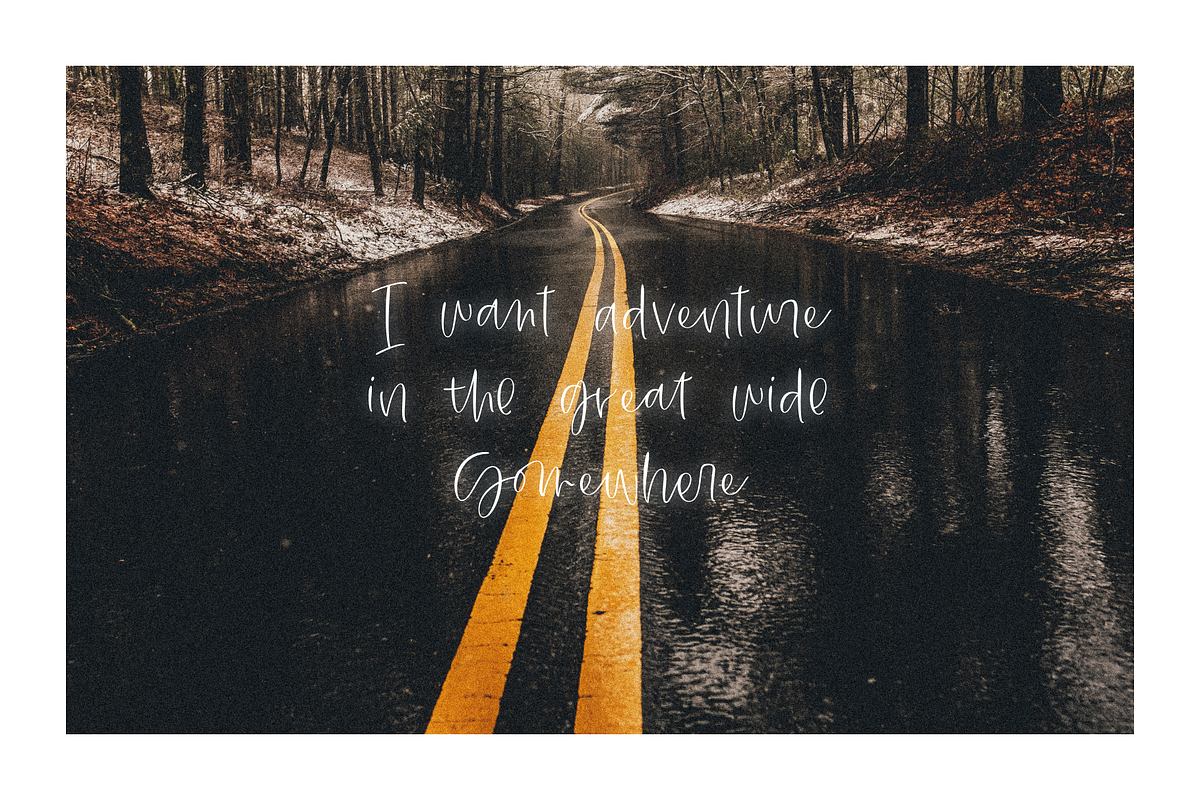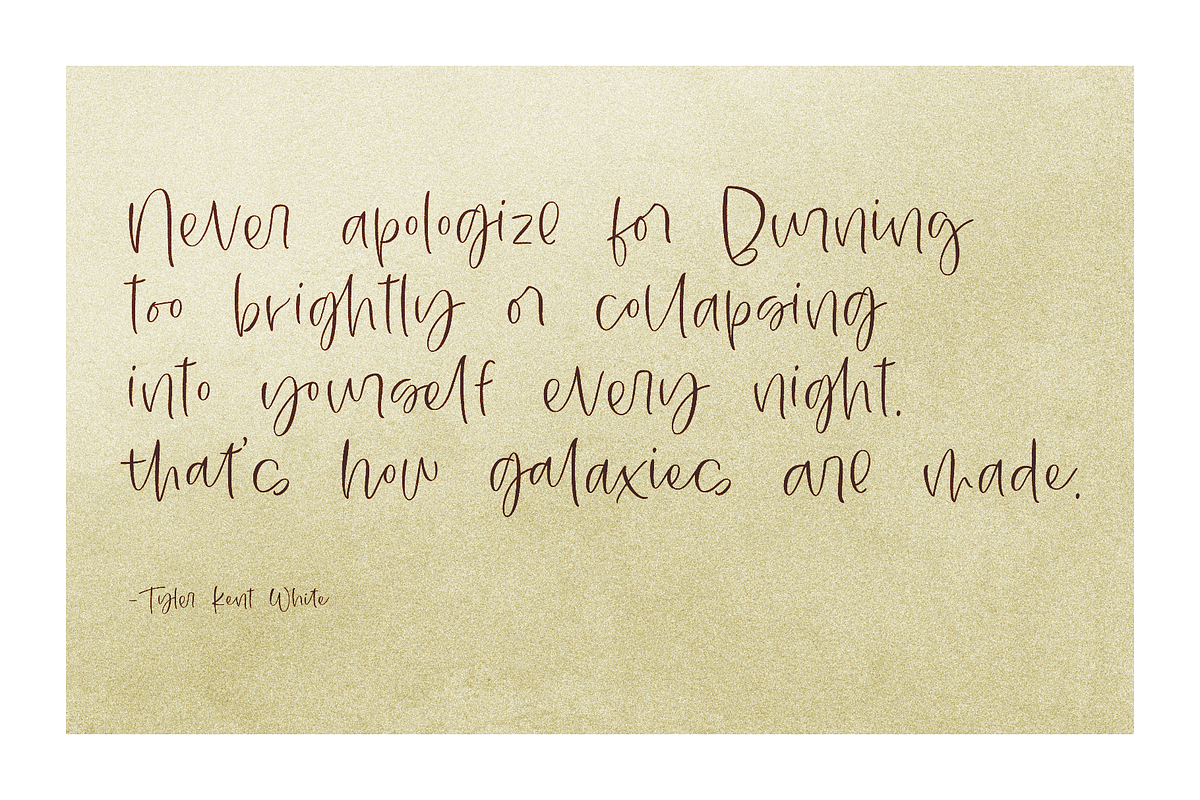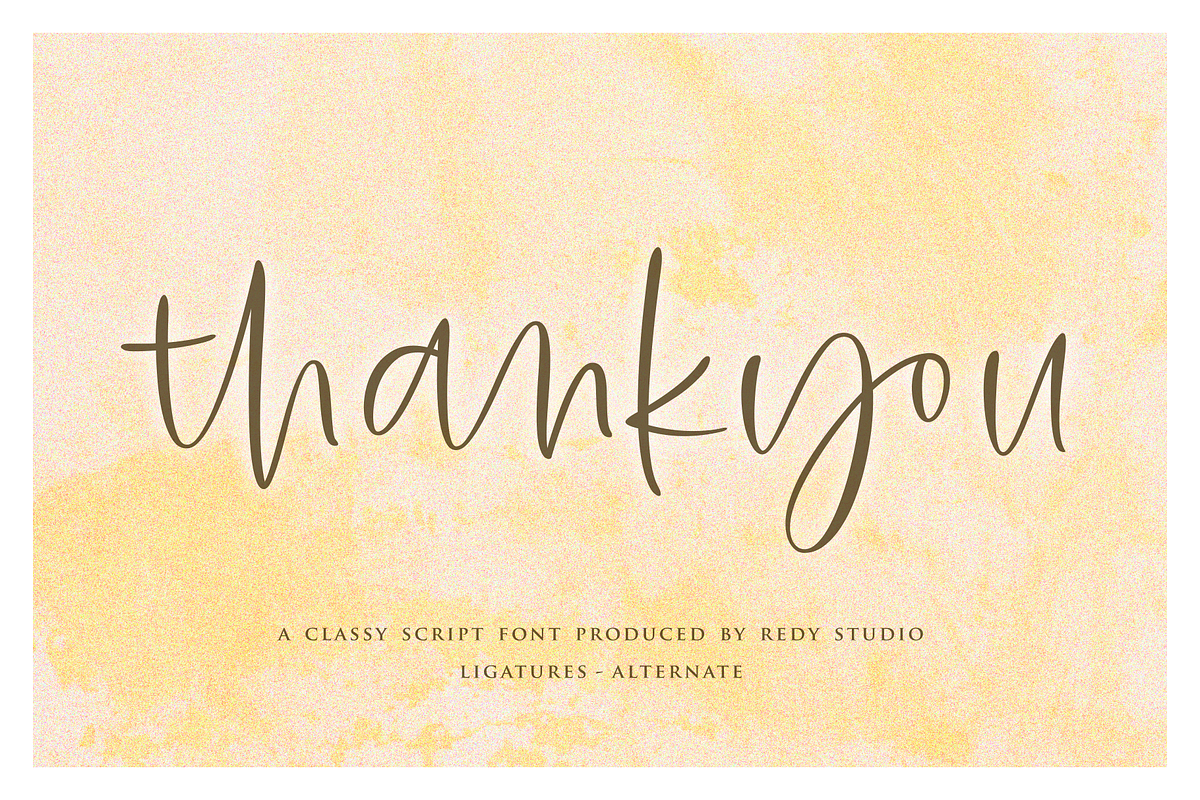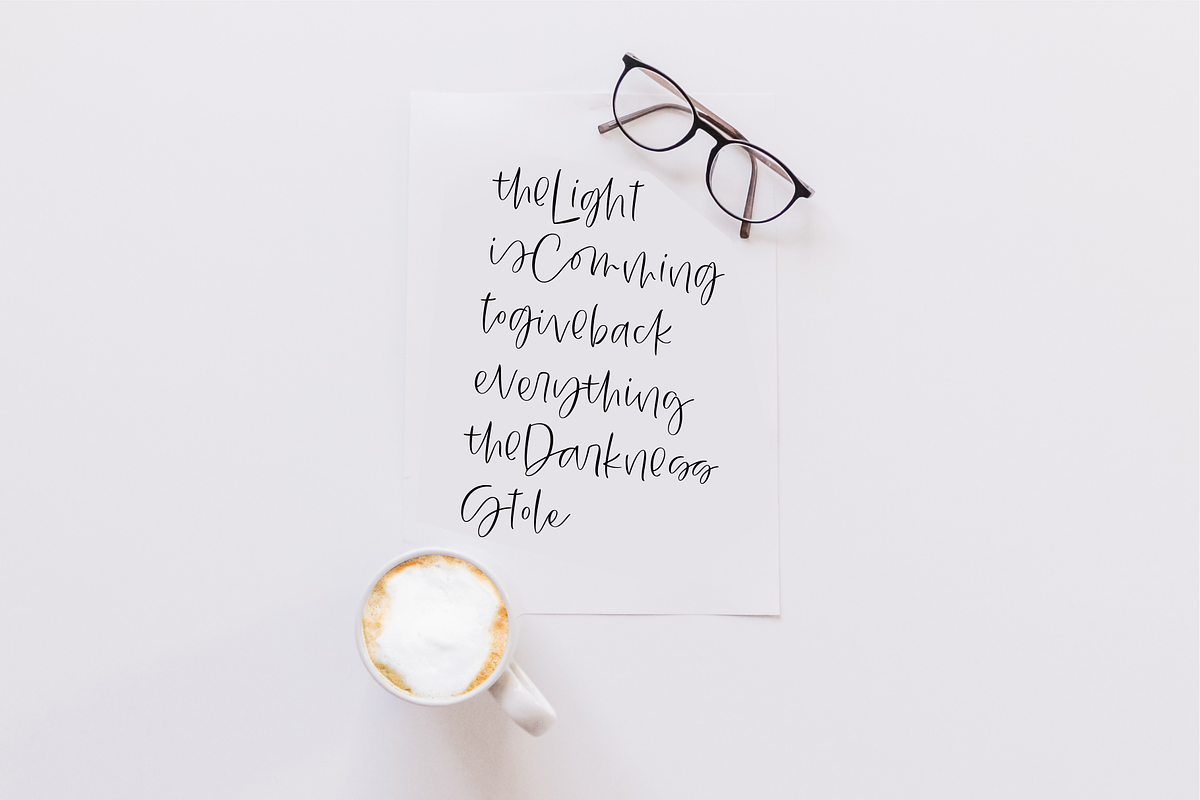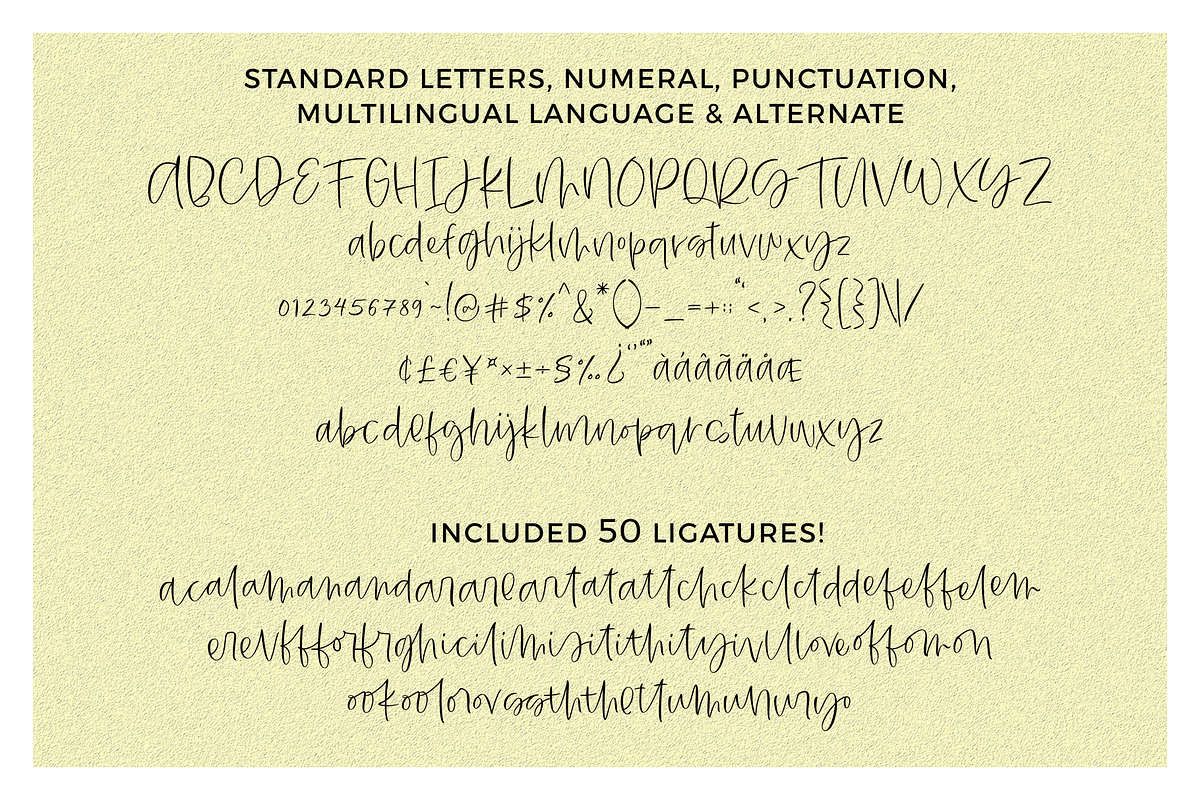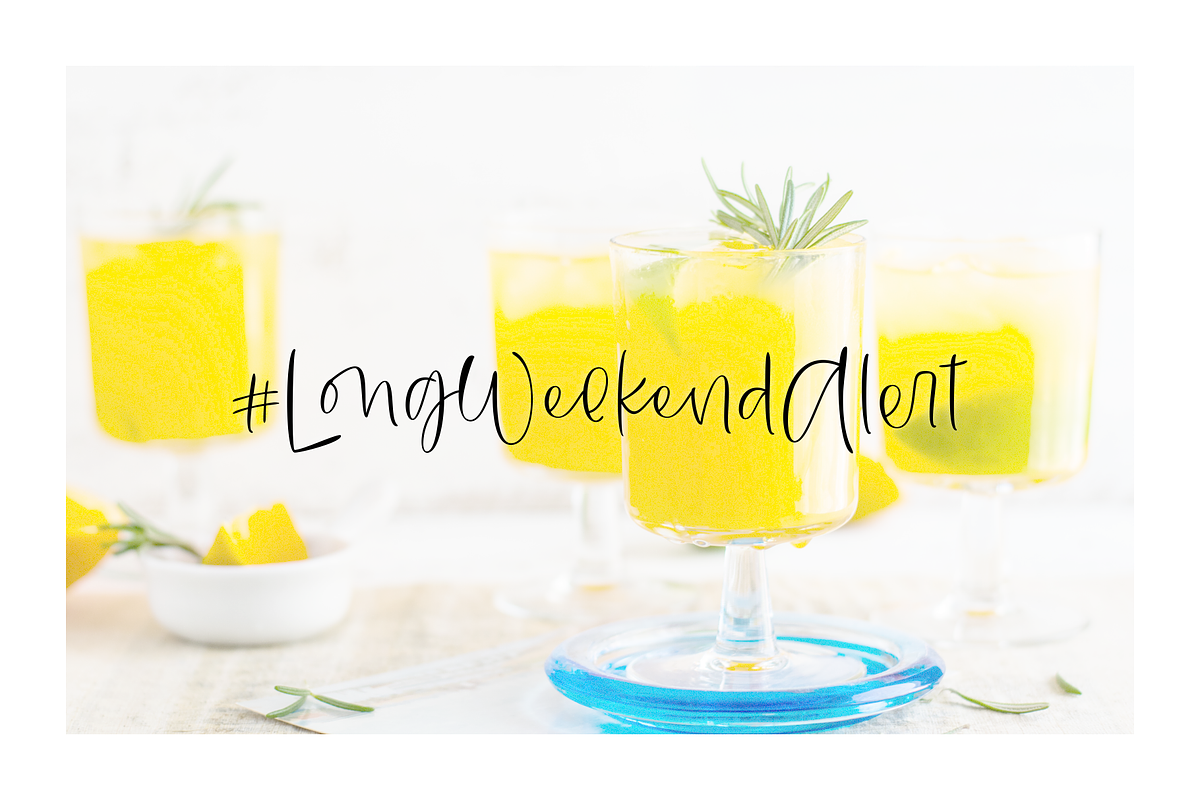
Plakias – Modern Calligraphy Fonts
Plakias is a stylish and modern calligraphy font for your next big project! The fine and gentle appearance of the font suits both brands and little projects, such as logos, greeting cards, social media headers, and branding materials, or any other project that needs a modern and clean look. To customize your work, even more, Plakias comes with lowercase alternates and 50 extravagant ligatures, so you can give your work the personal touch it deserves.
Plakias features:
- A full set of upper & lowercase characters
- 50 Extravagant ligatures
- Lowercase alternates characters
- Multilingual symbols